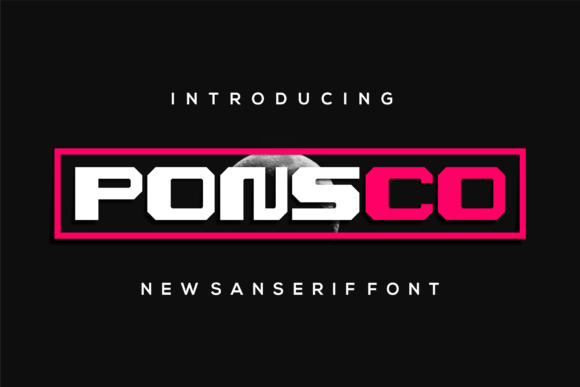
Looking for a font that can make your tech website stand out? Look no further than Ponsco!
Ponsco is a modern sans serif font that's perfect for creating a sleek and sophisticated look. It's easy to read on both screens and in print, making it a great choice for websites, logos, and other branding materials.
But Ponsco isn't just limited to tech. Its minimalist and clean aesthetic can be applied to any number of designs, from book covers and magazines to social media posts and invitations.
Here are just a few of the reasons why Ponsco is the best font for tech websites:
* It's modern and stylish, giving your website a cutting-edge look.
* It's easy to read on screens, so your visitors will have no trouble navigating your site.
* It's clean and minimalist, making it easy to draw attention to your important content.
* It's versatile, so you can use it for a variety of purposes, from headings to body text.